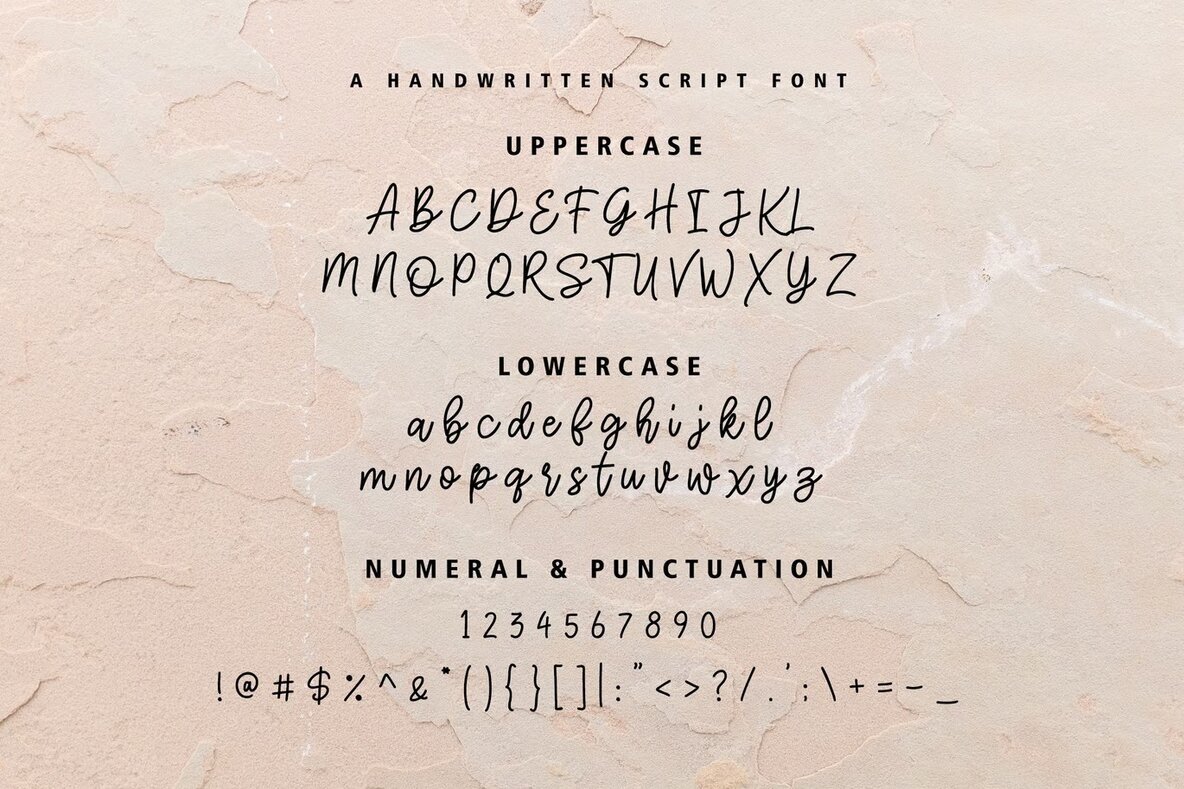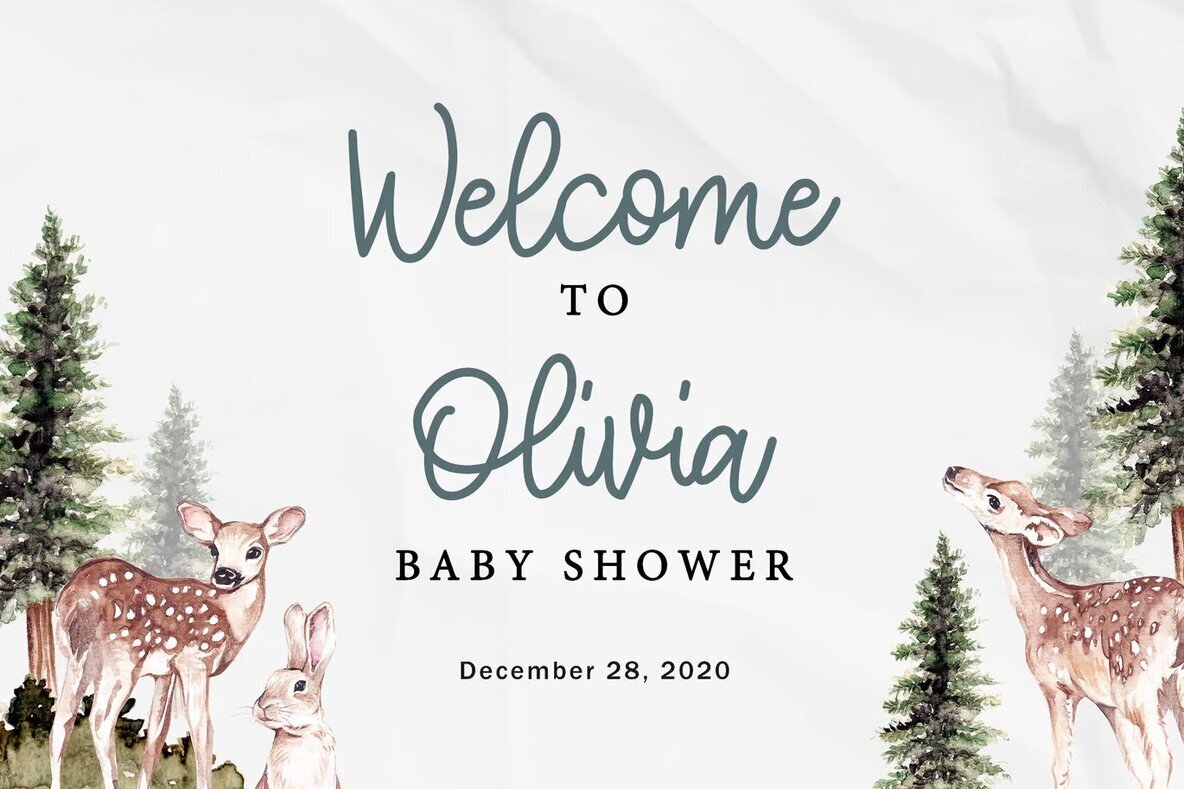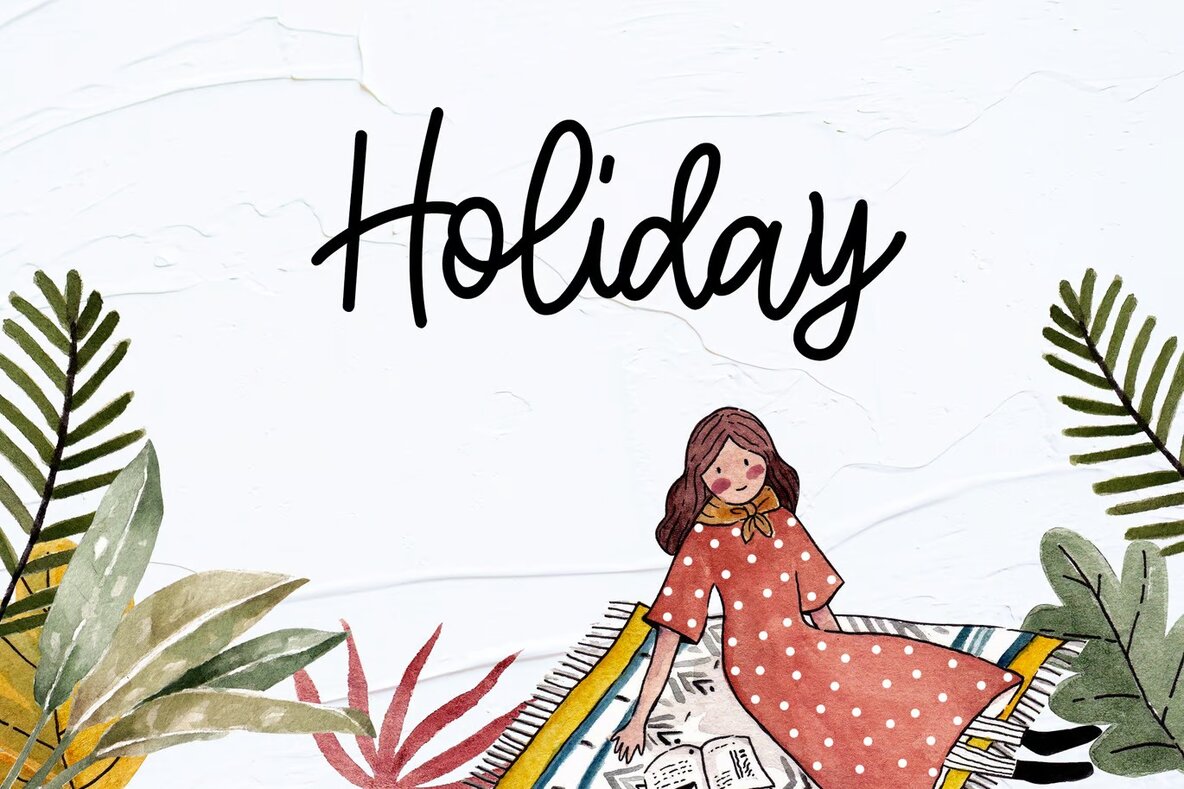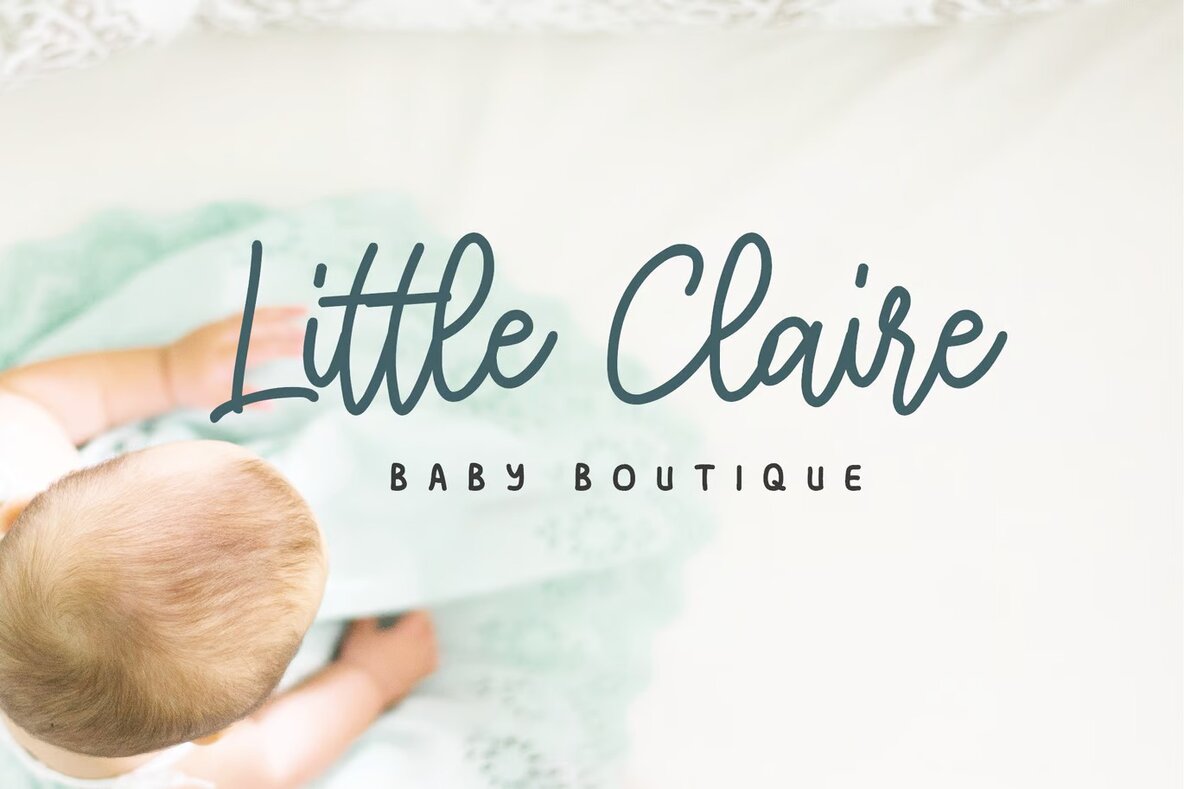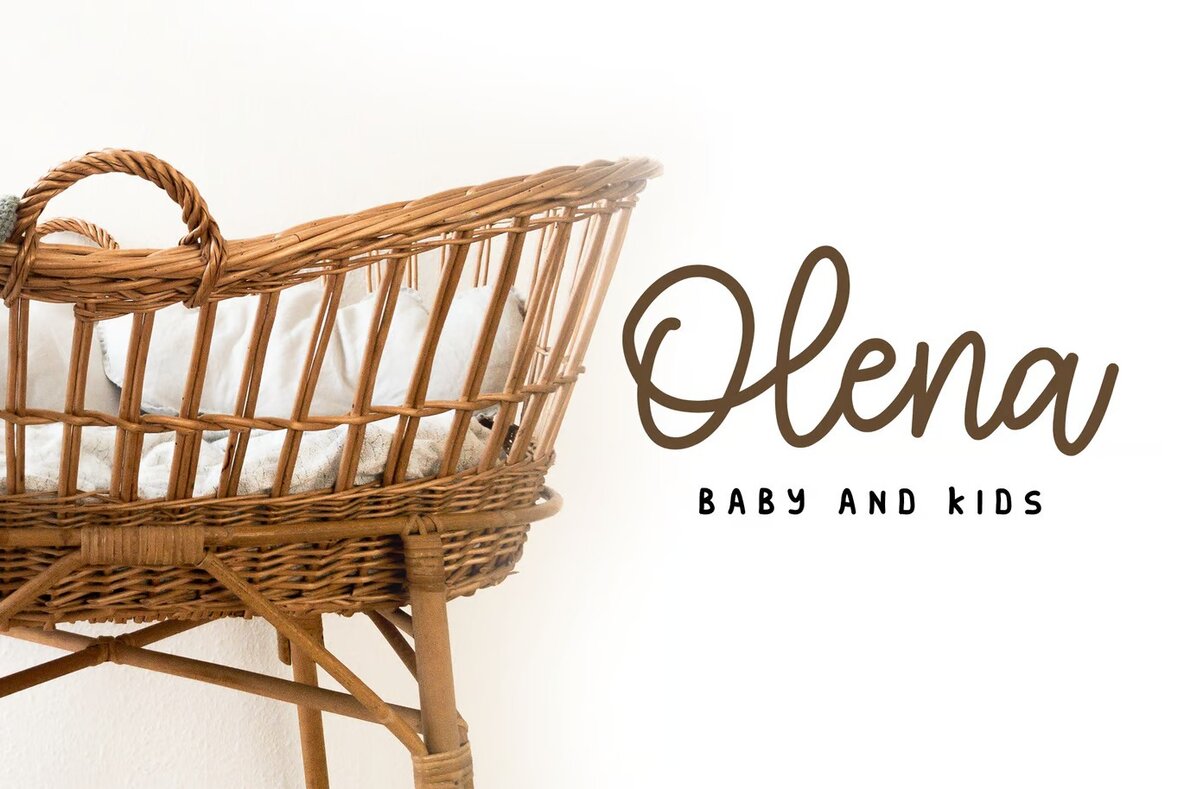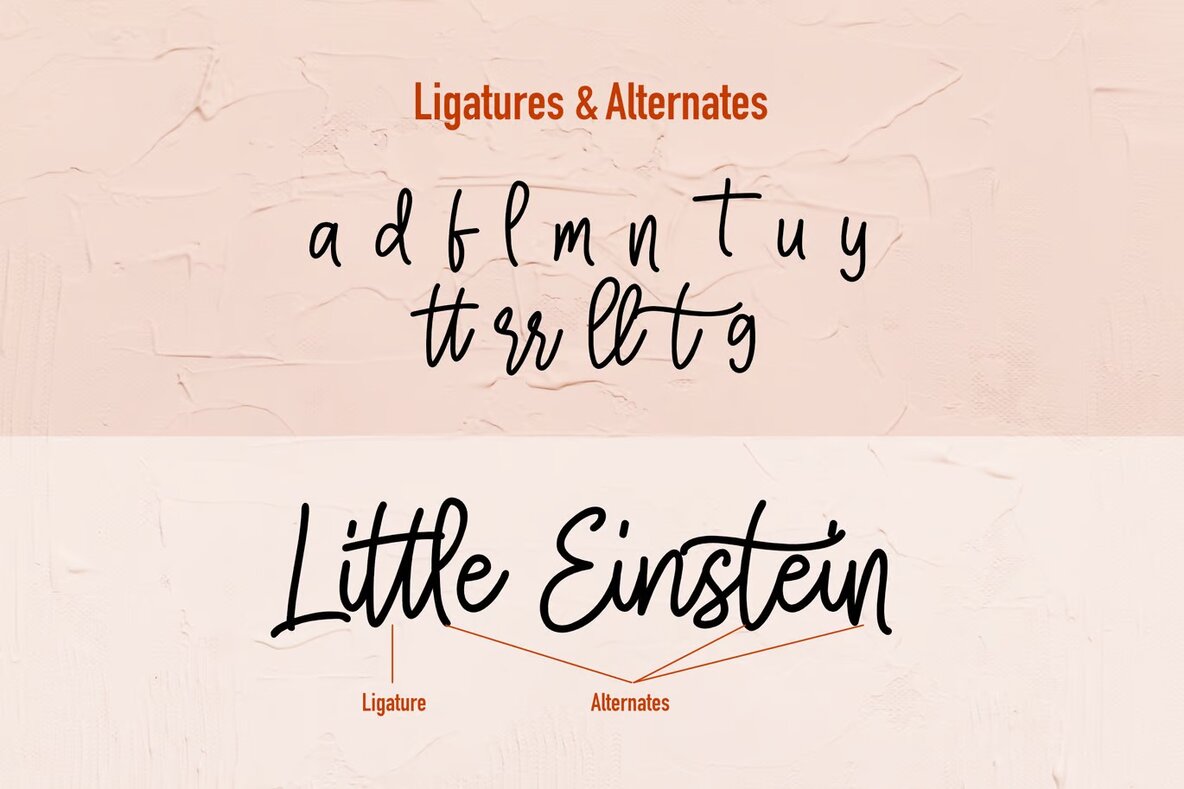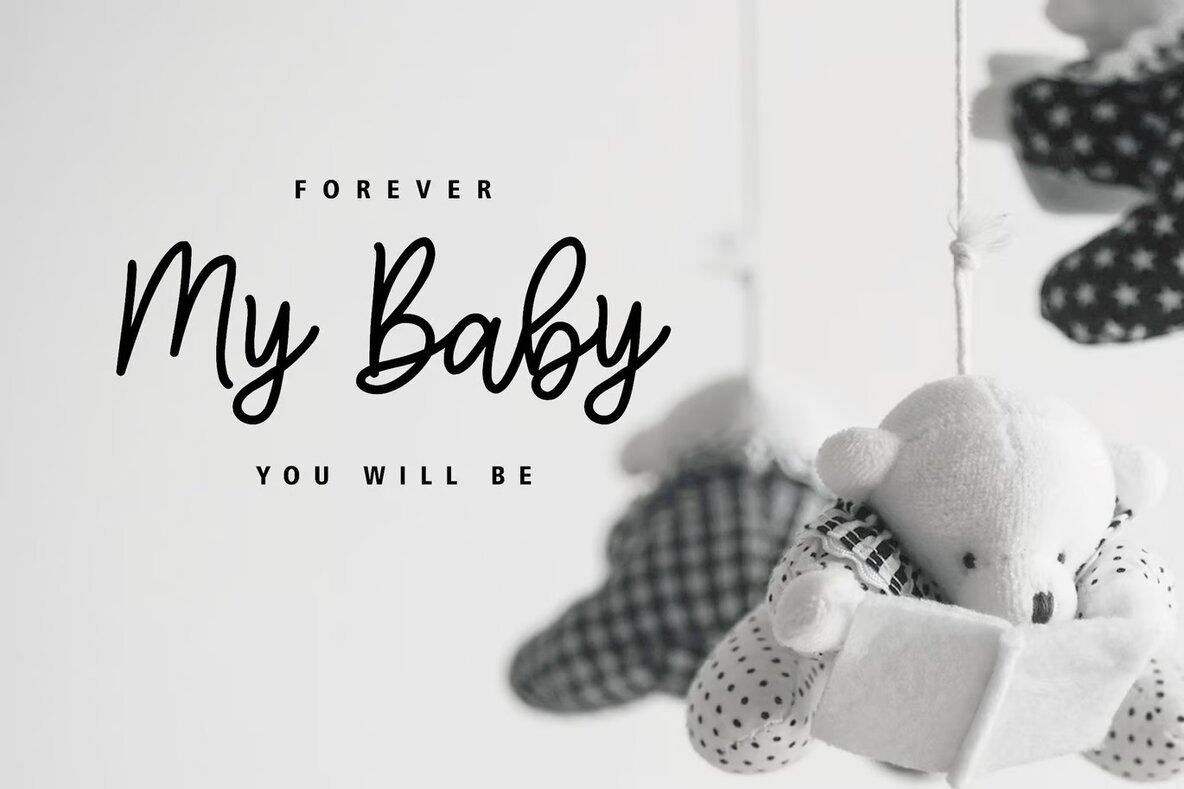
Fairy Baby Font
Fairy Baby
Fairy Baby is a charming signature handwritten font designed for a wide range of creative projects. With its unique monoline flow and effortless handwritten style, it is ideal for wedding designs, social media posts, and feminine branding. This font shines in greeting cards, modern invitation designs, and stationery, offering an elegant touch to any design element it graces.
Perfect for enhancing blog aesthetics, advertising, home decor, and even custom merchandise, Fairy Baby provides versatility for a variety of applications. Whether you're crafting an art quote, a book cover title, or custom birthday invitations, this font delivers a perfect blend of style and readability. Use Fairy Baby to bring a personal and sophisticated touch to your next design endeavor.